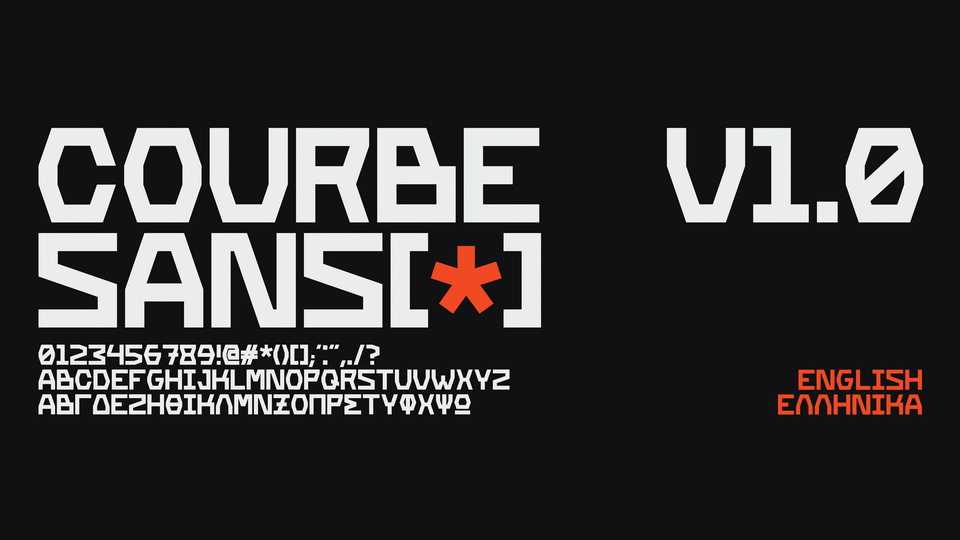
Download Courbe Sans font, an experimental, heavy, geometric display typeface inspired by the Constructivist movement and industrial signage.
Designer: Loukas Nicolaou